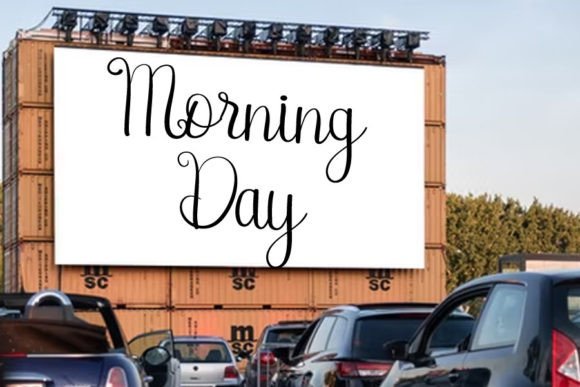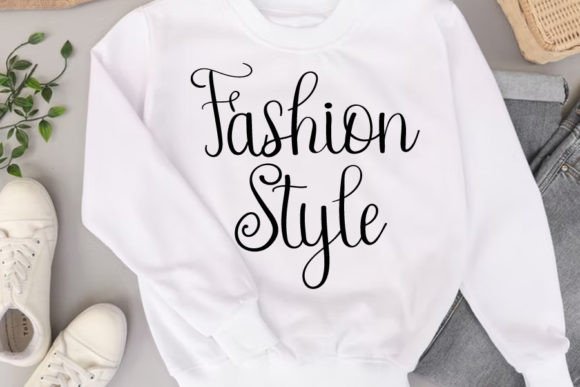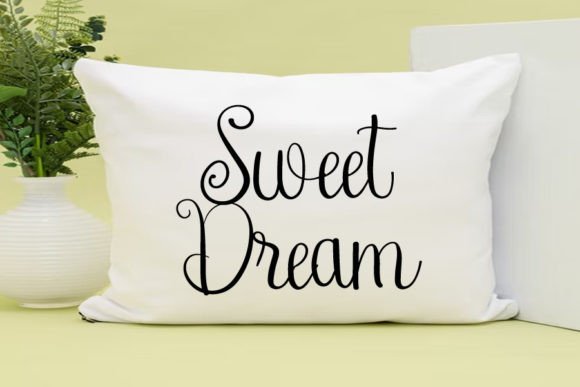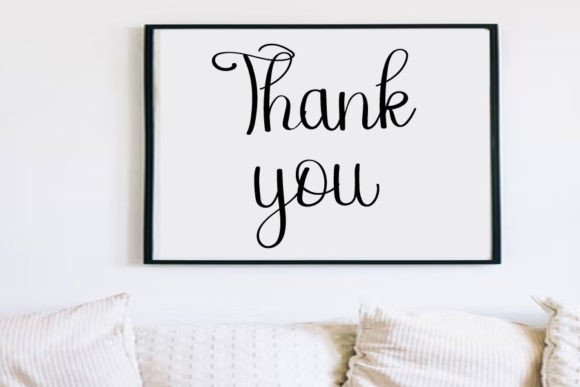
Unlock Your Creative Potential with Analogy Font
Remember the moment when you finally nailed that perfect design for your YouTube channel? The rush of excitement, the sense of accomplishment, and the pride of showcasing your unique style? That’s what happens when you find the right tools for the job, like the Analogy Font. This fresh and beautiful font is designed to elevate your design purposes, whether it’s creating captivating YouTube banners, stunning cover logo mockups, or elegant wedding invitations.
With Analogy Font, you’ll be able to bring your vision to life and give your business the boost it needs to progress and develop. Its simplicity and uniqueness make it a valuable asset for designers looking to stand out from the crowd. By incorporating this font into your design repertoire, you’ll be able to take your creative projects to the next level and make a lasting impression on your audience.
Analogy Font Key Features
- Unique Characteristics: Analogy Font features a unique blend of geometric and organic elements, creating a distinctive and modern aesthetic.
- Kerning and Ligatures: Analogy Font includes carefully crafted kerning and ligature pairs, ensuring smooth and even text rendering.
An Honest Review of Analogy Font
I recently had the chance to work with Analogy Font, and I must say, it’s an interesting choice for typography enthusiasts. ✨ One of the things that stood out to me was the font’s unique approach to legibility. The varying letterforms and subtle nuances in line width make it stand out in a crowded market.
- Unique approach to legibility
- Subtle nuances in line width
- Perfect for typography enthusiasts
However, I also encountered some limitations. ⚠️ The font’s design, while visually appealing, can be challenging to read in smaller sizes or when used for large blocks of text. Additionally, the font’s quirky nature may not be suitable for all design projects or audiences.
- Difficult to read in smaller sizes
- Not suitable for all design projects or audiences
- Can be overwhelming when used extensively
Overall, Analogy Font is a great choice for designers who want to make a statement with their typography. However, it’s essential to carefully consider the context and audience before using this font in a project.
Getting the Most Out of Analogy Font
To get the most out of Analogy Font, use it to create visually appealing headings and titles.
Experiment with different font sizes and colors to create a unique and engaging design.
Analogy Font is commonly used in:
- Infographics and data visualizations